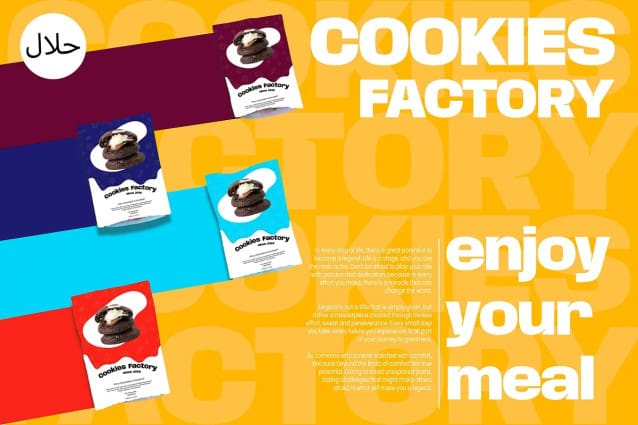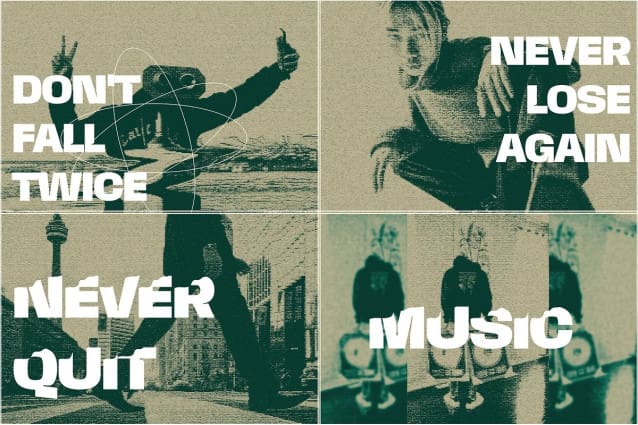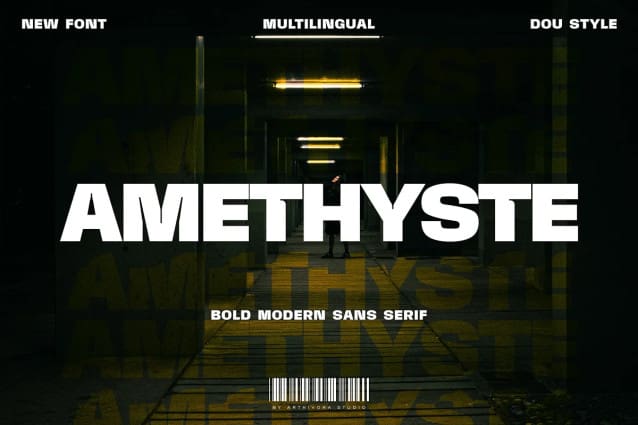
Amethyste Font
Amethyste Font, a simple and bold modern sans serif font. So perfect for you who needs a typeface for logo designs, magazine, social media, brochure, and many more.